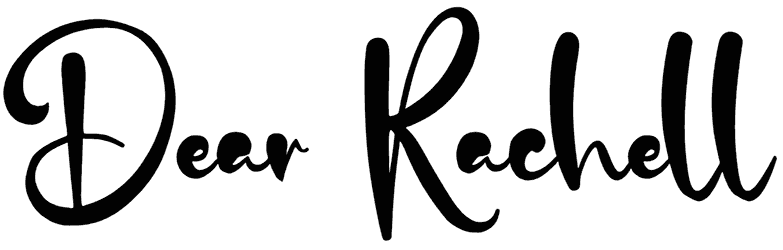
Dear Rachell Font
Dear Rachell is a lovely script font that comes with an angular style and feels insanely elegant. Due to its unique style, we would like to advise you to include this masterpiece in your own editorial projects, such as illustrations, wedding invitations, social media posts, stickers, or magazines.